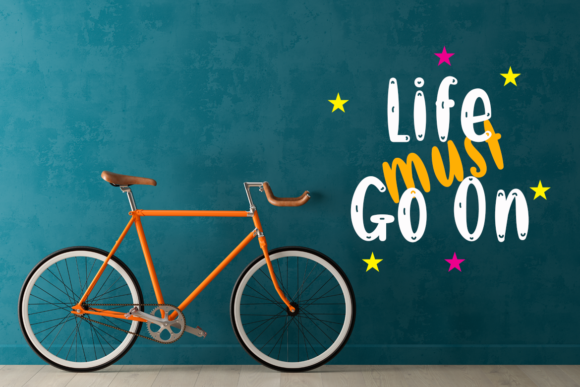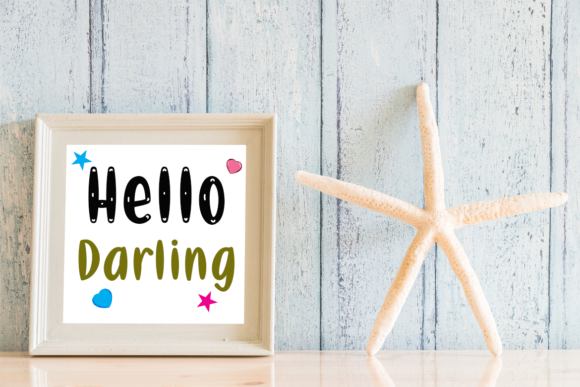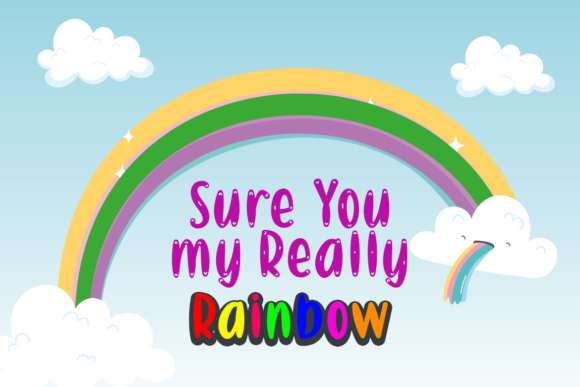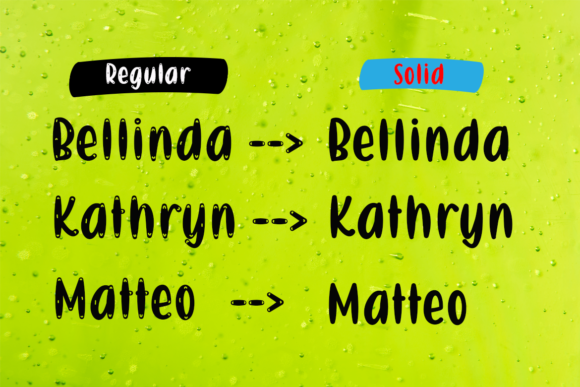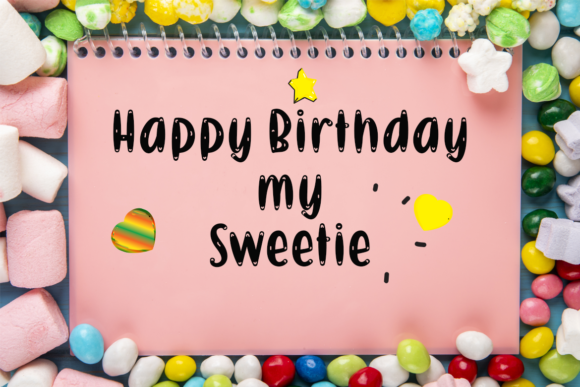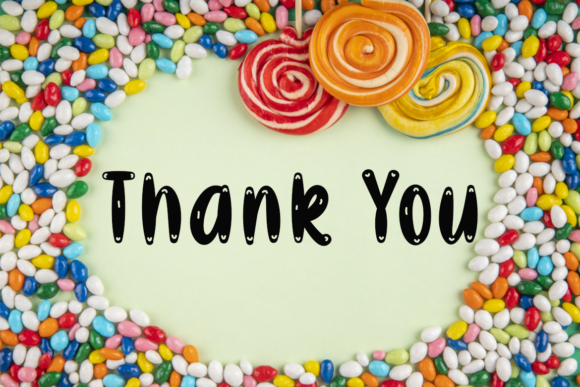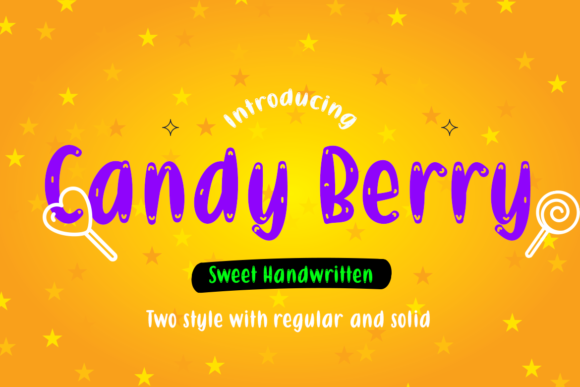
Candy Berry Font: The Sweetest Addition to Your Design Projects
Are you looking for a font that can add a touch of fun, playfulness, and cuteness to your design projects? Look no further than the Candy Berry Font! This delightful display font is perfect for designers, crafters, and anyone looking to add a dash of sweetness to their creative endeavors.
What is Candy Berry Font?
Candy Berry Font is a fun, bubbly, and cute display font that is sure to make your projects stand out. Its playful and whimsical design makes it perfect for a wide range of applications, from crafting and scrapbooking to branding and advertising. With its bold and eye-catching letters, Candy Berry Font is sure to grab attention and leave a lasting impression.
Features of Candy Berry Font
- Fun and playful design: Candy Berry Font features a unique and playful design that is sure to add a touch of fun to your projects.
- Cute and whimsical: The font’s cute and whimsical design makes it perfect for projects that require a touch of sweetness and charm.
- Display font: Candy Berry Font is a display font, making it perfect for headlines, titles, and other display text.
- Easy to use: The font is easy to use and can be easily matched to a wide range of projects.
Uses of Candy Berry Font
Candy Berry Font can be used in a wide range of projects, including:
- Crafting and scrapbooking: The font’s playful and whimsical design makes it perfect for crafting and scrapbooking projects.
- Branding and advertising: The font’s bold and eye-catching design makes it perfect for branding and advertising projects.
- Sign making: Candy Berry Font is perfect for creating eye-catching signs and displays.
- Party decorations: The font’s fun and playful design makes it perfect for party decorations and invitations.
Why Choose Candy Berry Font?
There are many reasons why you should choose Candy Berry Font for your design projects. Here are just a few:
- Unique design: Candy Berry Font features a unique and playful design that is sure to make your projects stand out.
- Easy to use: The font is easy to use and can be easily matched to a wide range of projects.
- Versatile: Candy Berry Font can be used in a wide range of projects, from crafting and scrapbooking to branding and advertising.
Tips for Using Candy Berry Font
Here are a few tips for using Candy Berry Font in your design projects:
- Use it sparingly: While Candy Berry Font is a beautiful font, it can be overwhelming if used too much. Use it sparingly to add a touch of fun and playfulness to your projects.
- Pair it with other fonts: Candy Berry Font can be paired with other fonts to create a unique and interesting look.
- Experiment with colors: The font’s bold and eye-catching design makes it perfect for experimenting with different colors and color combinations.
| Font Name | Candy Berry Font |
| Author | Supersemar Letter |
In conclusion, Candy Berry Font is a fun, bubbly, and cute display font that is perfect for designers, crafters, and anyone looking to add a dash of sweetness to their creative endeavors. Its playful and whimsical design makes it perfect for a wide range of applications, from crafting and scrapbooking to branding and advertising. With its bold and eye-catching letters, Candy Berry Font is sure to grab attention and leave a lasting impression.